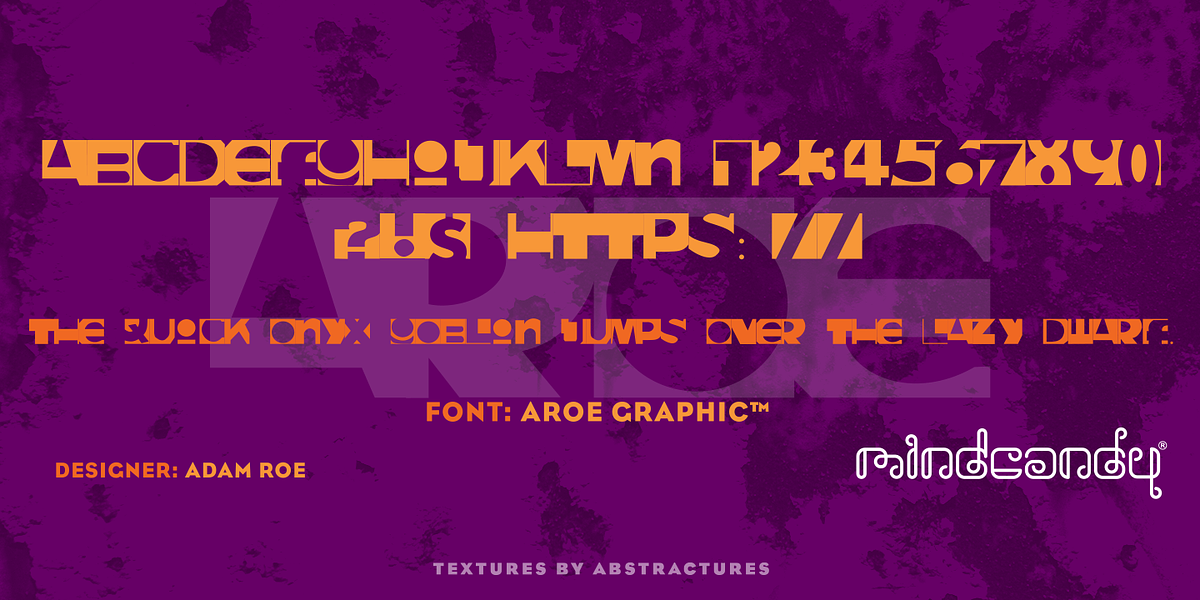
Aroe Graphic™
This font is a bold, all-caps display font designed for eye-catching designs. Its novelty classification suggests it's intended for playful and attention-grabbing uses like headlines, branding, and posters.